2 Google Fonts Similar to Fairfield
Fairfield is a serif typeface released in the 1940s. It's inspiration comes from old Venetian typefaces. It is an elegant font that has been gaining more and more popularity over time.
After searching through Google Fonts, I believe that I have been able to find two good font alternatives.
What Google Fonts are Similar to Fairfield?
The most similar looking fonts available in the Google Fonts library to Fairfield are:
- Castoro
- Libre Baskerville
Both of these would make for a good alternative to Fairfield.
Below I cover more detail on each one.
Castoro
Castoro is a great serif font available in the Google Font library. It shares many of the same characteristics that Fairfield has.
The letter formation is very similar to Fairfield. The minor differences within the lowercase letters are the "y" and the "g".
While in the uppercase, the main difference is in the uppercase "Q".
Go ahead and compare below.
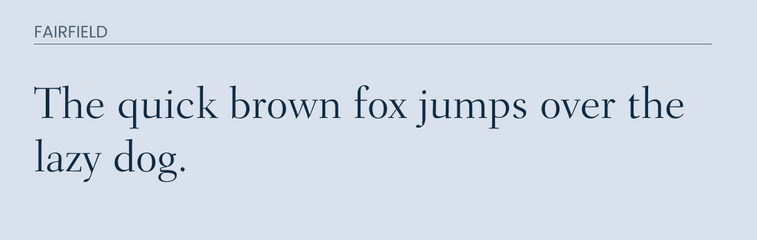
Libre Baskerville
Libre Baskerville would also make for a great alternative because it share many of the same characteristics that Fairfield has.
Many of it's letters are similar, especially in the lowercase.
One of the things that I like have Libre Baskerville, is that it makes a solid attempt at matching the uppercase "Q".
See for yourself.
Final Thoughts
Either Libre Baskerville or Castoro would make great alternatives for Fairfield. Serif fonts can always be tricky to find good matches too because there are many intricate parts. However, I believe that either one of the fonts mentioned above would work.